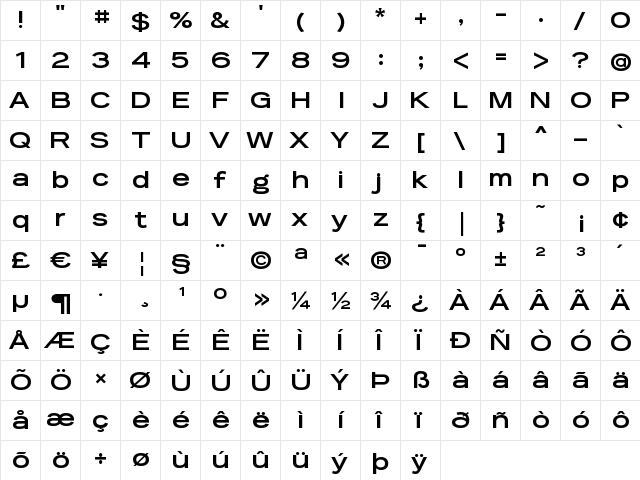
Reservation Wide Bold
| Foundry | Silas Dilworth |
| Designer | Silas Dilworth |
Design Context for Reservation Wide Typeface
Reservation Wide offers clean, dependable letterforms without strong stylistic allegiance, making it a practical choice for designers who need flexibility. Its bold stroke weight gives it real presence on the page.
Pro Tip: Use Reservation Wide in both headline and body roles to test its range before committing to a single application.